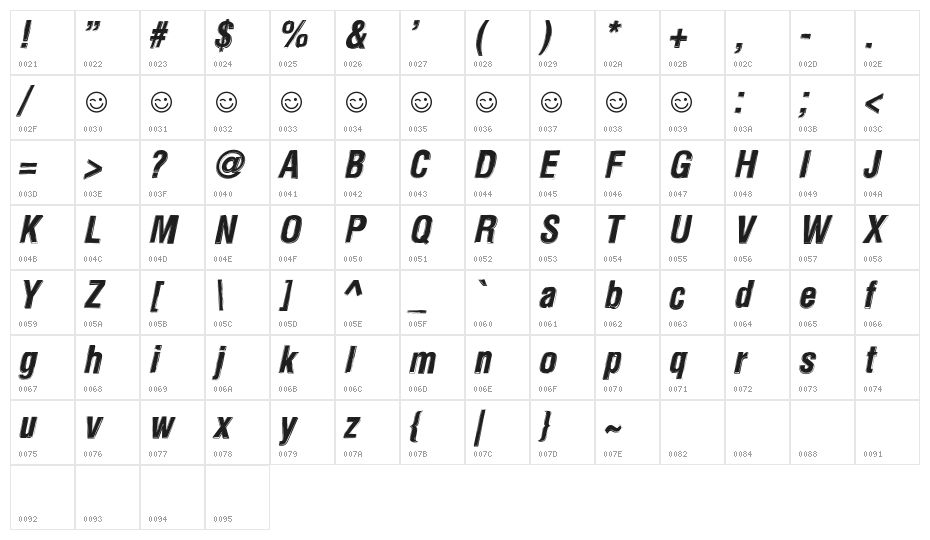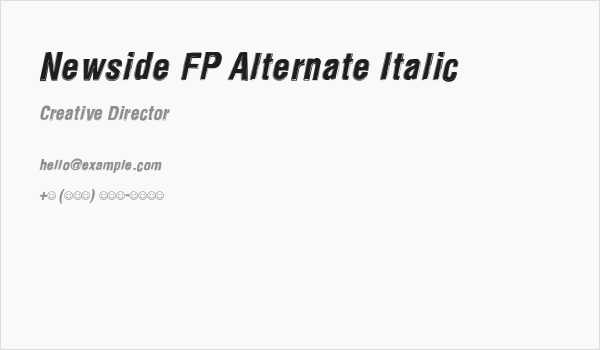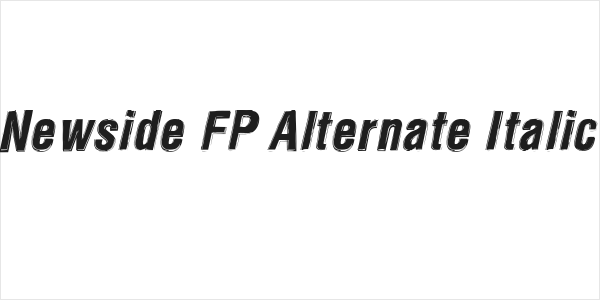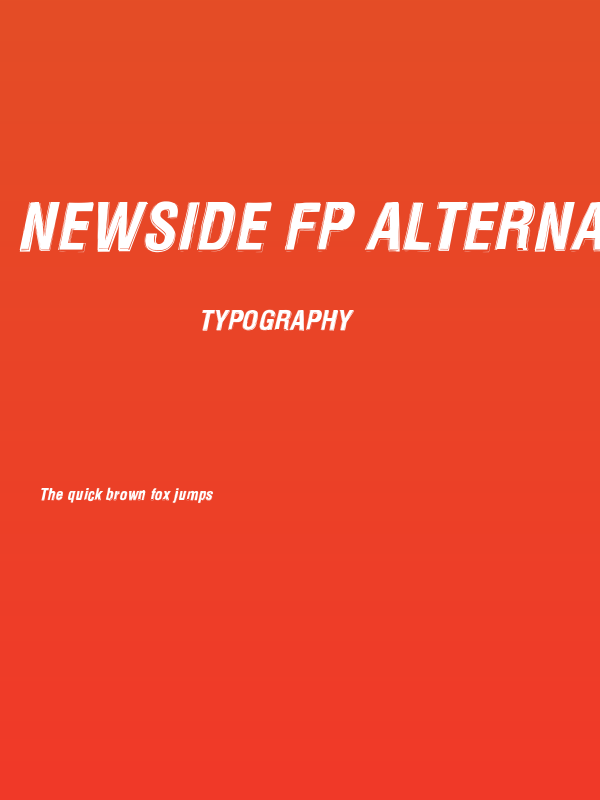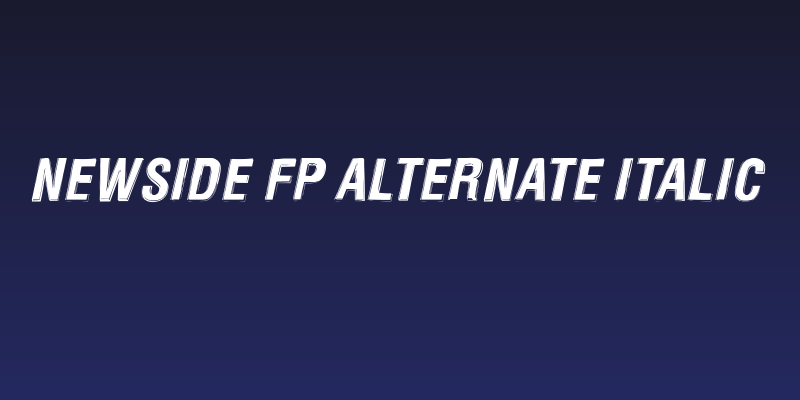
Newside FP Alternate Italic Font
Newside FP Alternate Italic Description
This font features a bold and dynamic italic style with a strong presence. The letters are slightly slanted, giving a sense of motion and energy. The strokes are thick, providing a robust and impactful appearance. The uppercase and lowercase letters maintain a consistent style, with a slight variation in height and width that adds to the overall aesthetic. The numbers and special characters are designed to match the boldness of the alphabet, ensuring a cohesive look across all text. This font is ideal for making a statement, with its eye-catching design and modern flair.
| Use Case | Headlines, Logos, Advertising |
| Proposed Projects | Ideal for branding, advertising, headlines, and any project that requires a strong visual impact. |